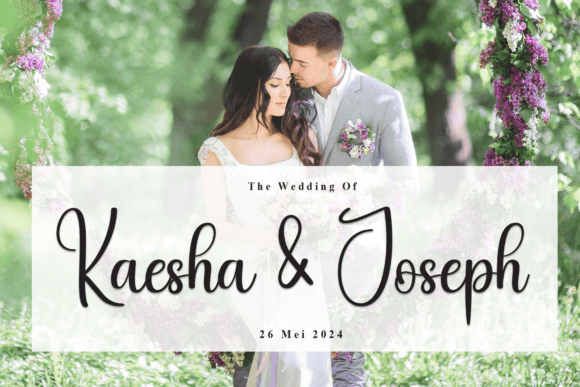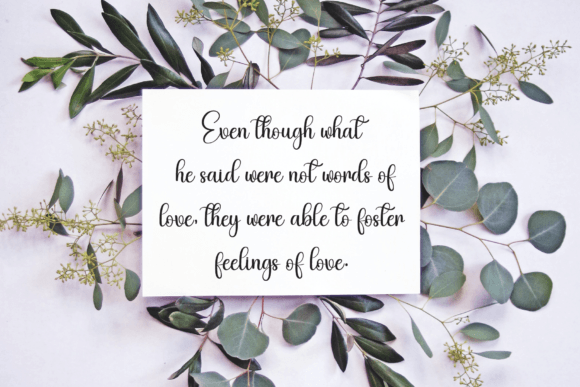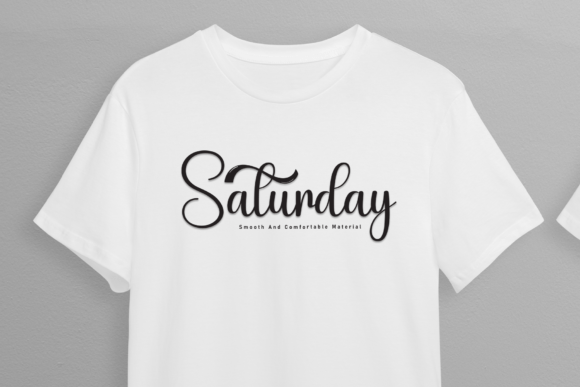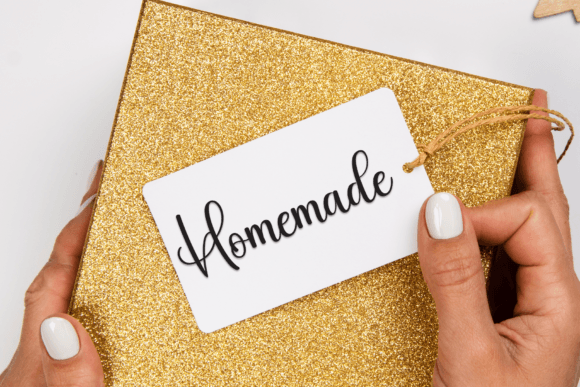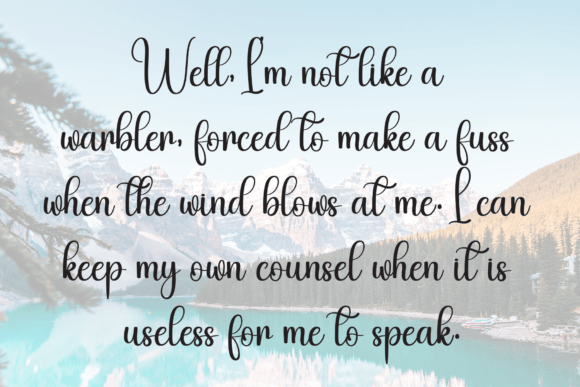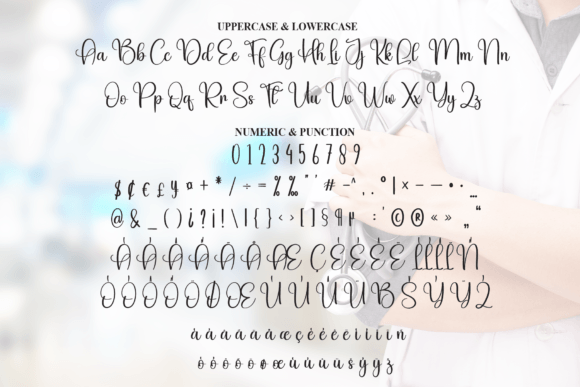
Introducing Doctor Hospital Font: The Sweet and Friendly Handwritten Font for Your Creative Projects
Are you a designer or crafter looking for a font that can add a touch of warmth and playfulness to your designs? Look no further than the Doctor Hospital font, a sweet and friendly handwritten font that’s perfect for a variety of creative projects. In this article, we’ll explore the features and benefits of this versatile font, and show you can use it to take your designs to the next level.
What is Doctor Hospital Font?
Doctor Hospital is a beautiful handwritten font that’s designed to bring a sense of fun and approachability to your designs. With its rounded letters and gentle curves, this font is perfect for creating designs that are both cute and sophisticated. Whether you’re working on a wedding invitation, a greeting card, or a social media graphic, Doctor Hospital is the perfect choice.
Key Features of Doctor Hospital Font
- Cute and Versatile: Doctor Hospital is a font that’s both cute and versatile, making it perfect for a wide range of design projects.
- Handwritten Style: This font features a beautiful handwritten style that’s perfect for adding a personal touch to your designs.
- Easy to Read: Despite its playful style, Doctor Hospital is easy to read, making it perfect for use in body text and headings.
- Multilingual Support: This font supports multiple languages, making it a great choice for designers who work with international clients.
Use Cases for Doctor Hospital Font
So, what can you use Doctor Hospital font for? The possibilities are endless! Here are a few ideas to get you started:
- Wedding Invitations: Add a touch of romance and whimsy to your wedding invitations with Doctor Hospital font.
- Greeting Cards: Create beautiful and personalized greeting cards for birthdays, holidays, and other special occasions.
- Social Media Graphics: Use Doctor Hospital font to create eye-catching social media graphics that are sure to stand out.
- Branding and Packaging: Add a playful touch to your branding and packaging with this versatile font.
Tips for Using Doctor Hospital Font
Here are a few tips for getting the most out of Doctor Hospital font:
- Pair it with Other Fonts: Doctor Hospital font pairs well with a variety of other fonts, so don’t be afraid to experiment with different combinations.
- Use it in Headings and Body Text: This font is easy to read, making it perfect for use in both headings and body text.
- Experiment with Colors: Doctor Hospital font looks great in a variety of colors, so don’t be afraid to get creative with your color palette.
In conclusion, Doctor Hospital font is a sweet and friendly handwritten font that’s perfect for designers and crafters who want to add a touch of fun and playfulness to their designs. With its versatility, ease of use, and range of applications, this font is sure to become a staple in your design toolkit. So why wait? Download Doctor Hospital font today and start creating beautiful, eye-catching designs that are sure to delight!
- Is Doctor Hospital font suitable for use in body text? Yes, Doctor Hospital font is easy to read and suitable for use in body text. However, it’s particularly effective when used in headings and titles.